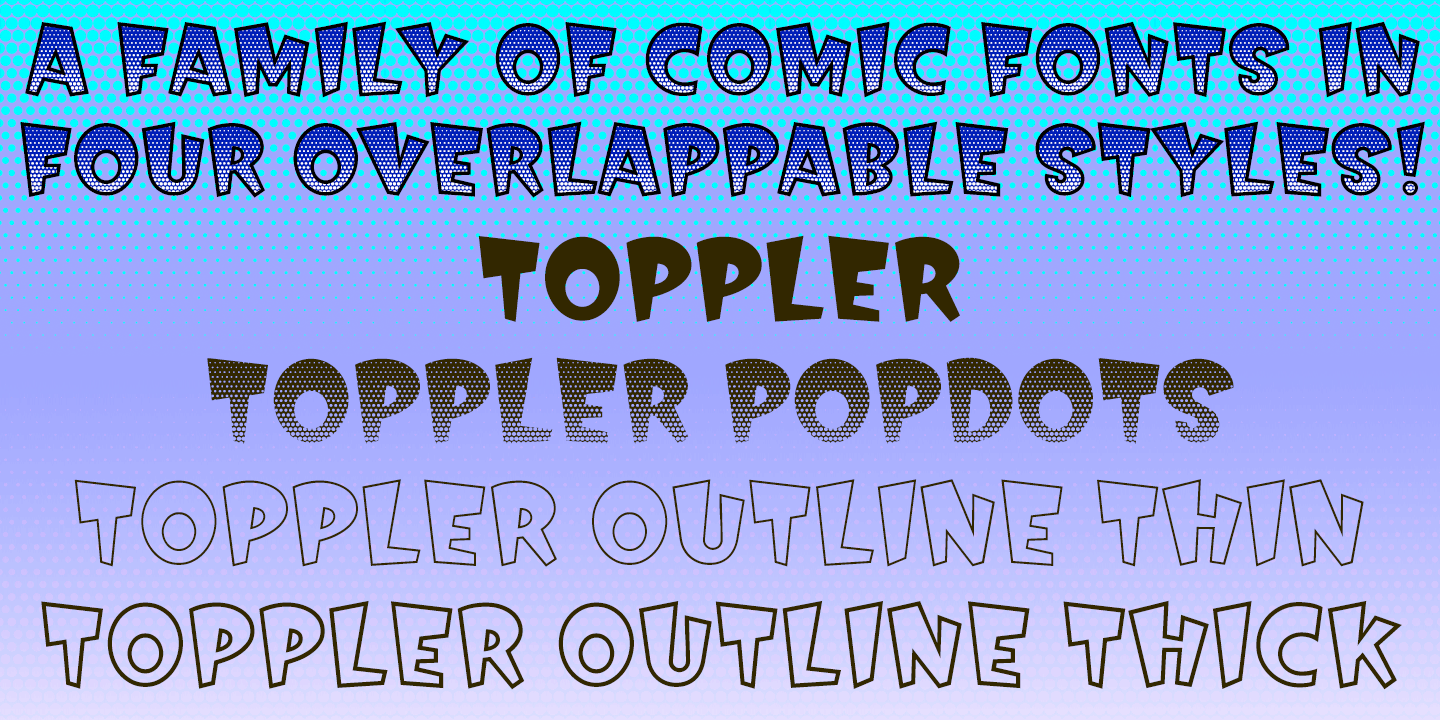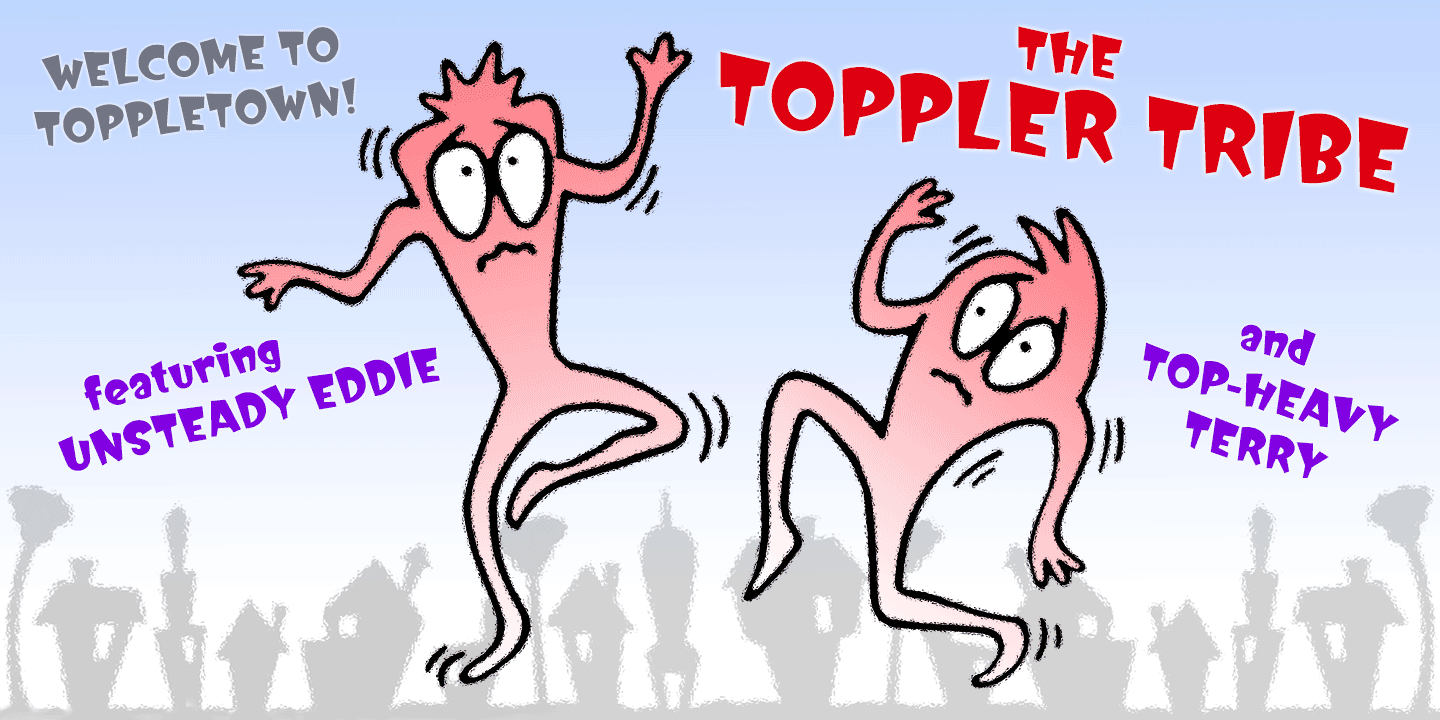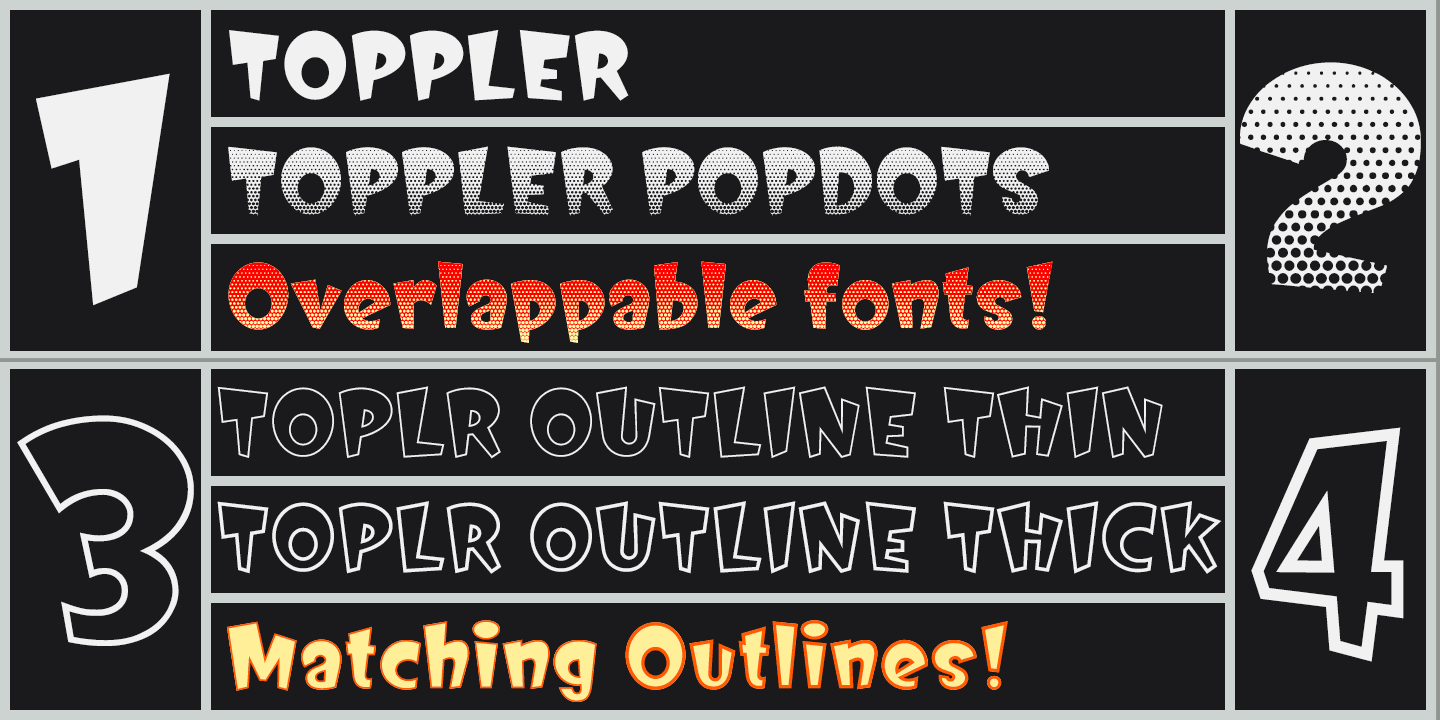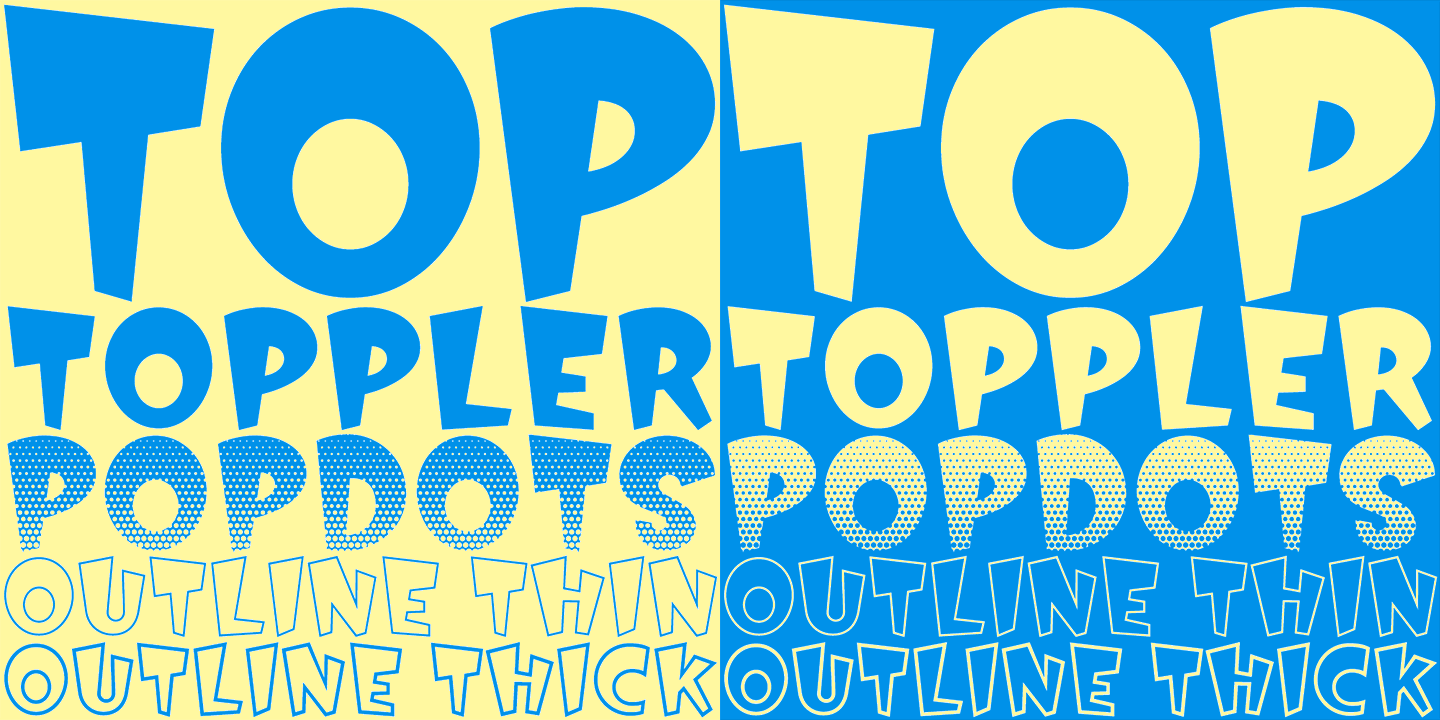
About Toppler
Toppler is a top-heavy comic face, K-Type\’s salute to nineties freebies such as Ben Balvanz\’s Baby Kruffy, Comix Heavy from WSI, and Dave Bastian\’s Startling. Unlike those glorious fonts-of-old, Toppler contains a complete repertoire of symbols, dingbats…